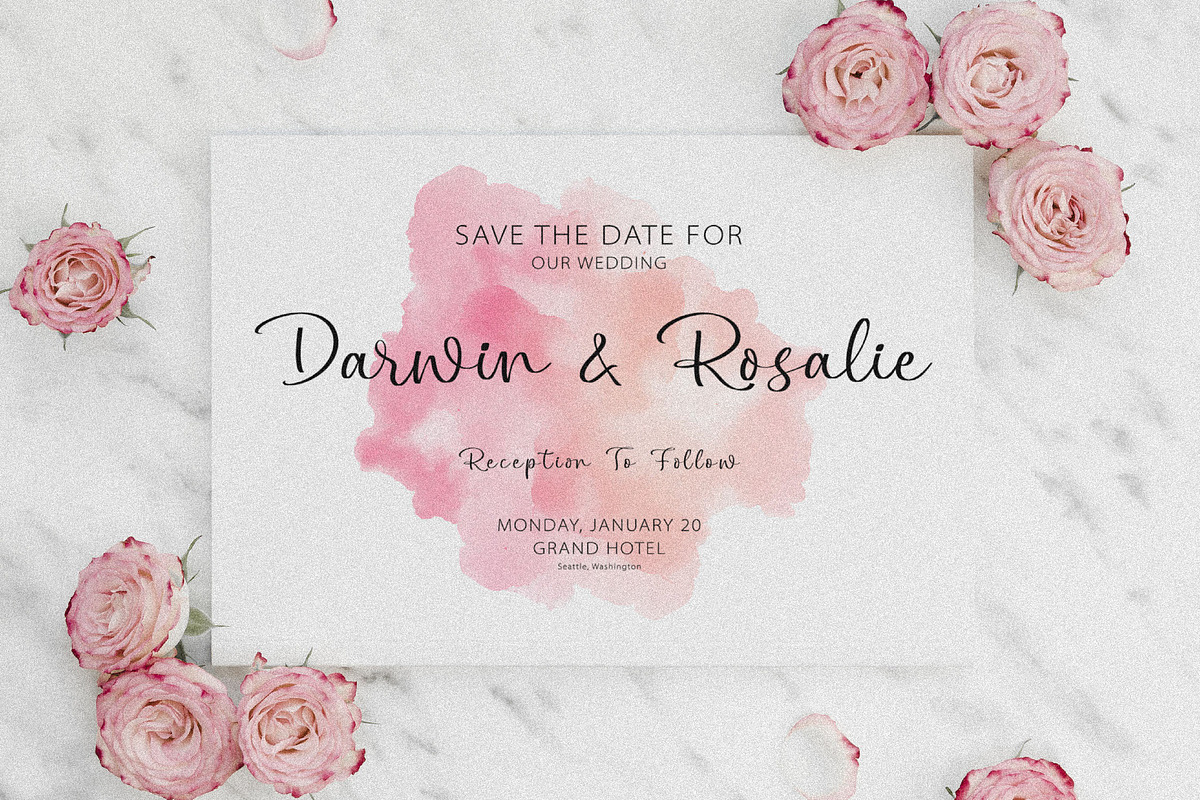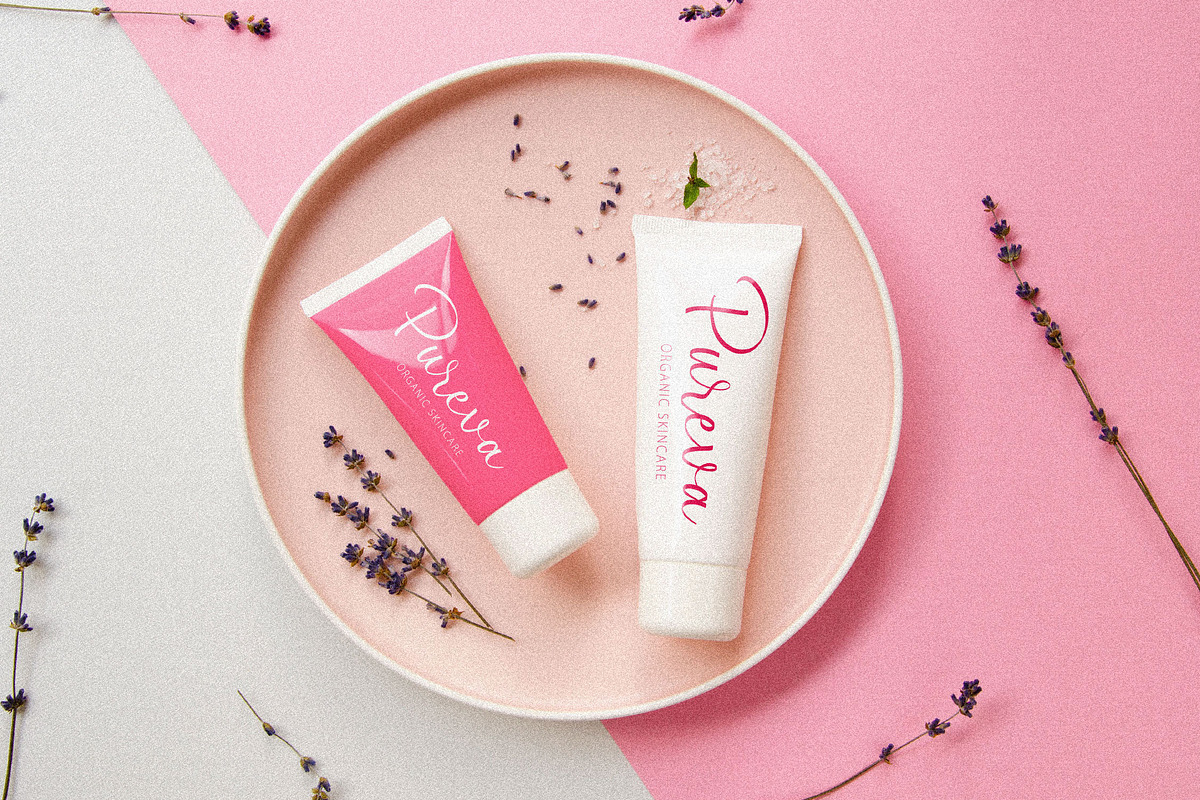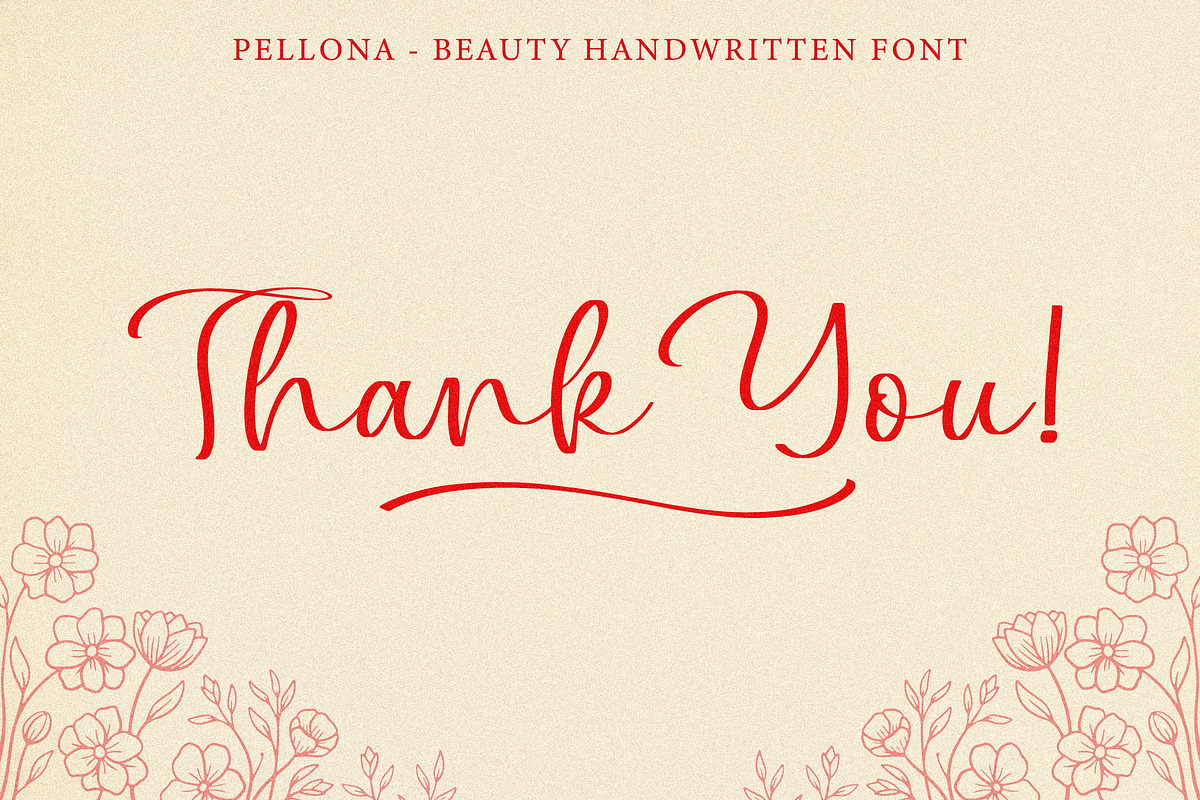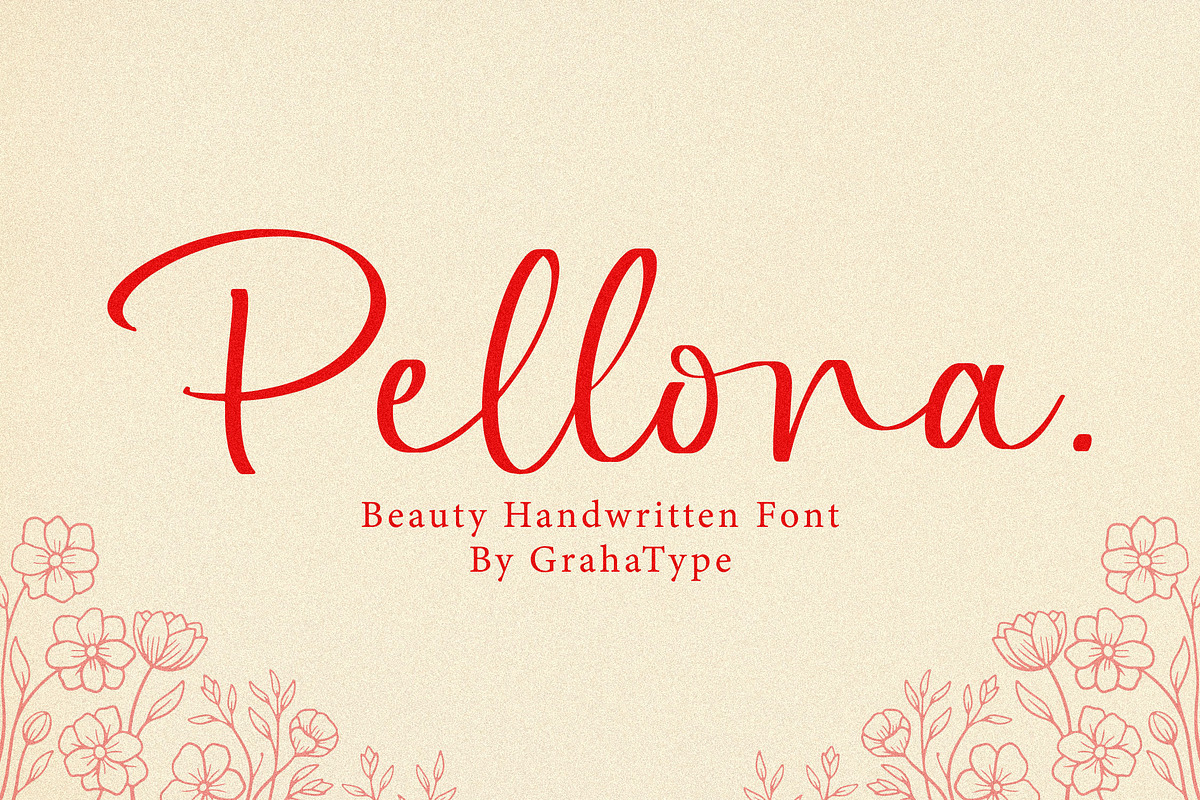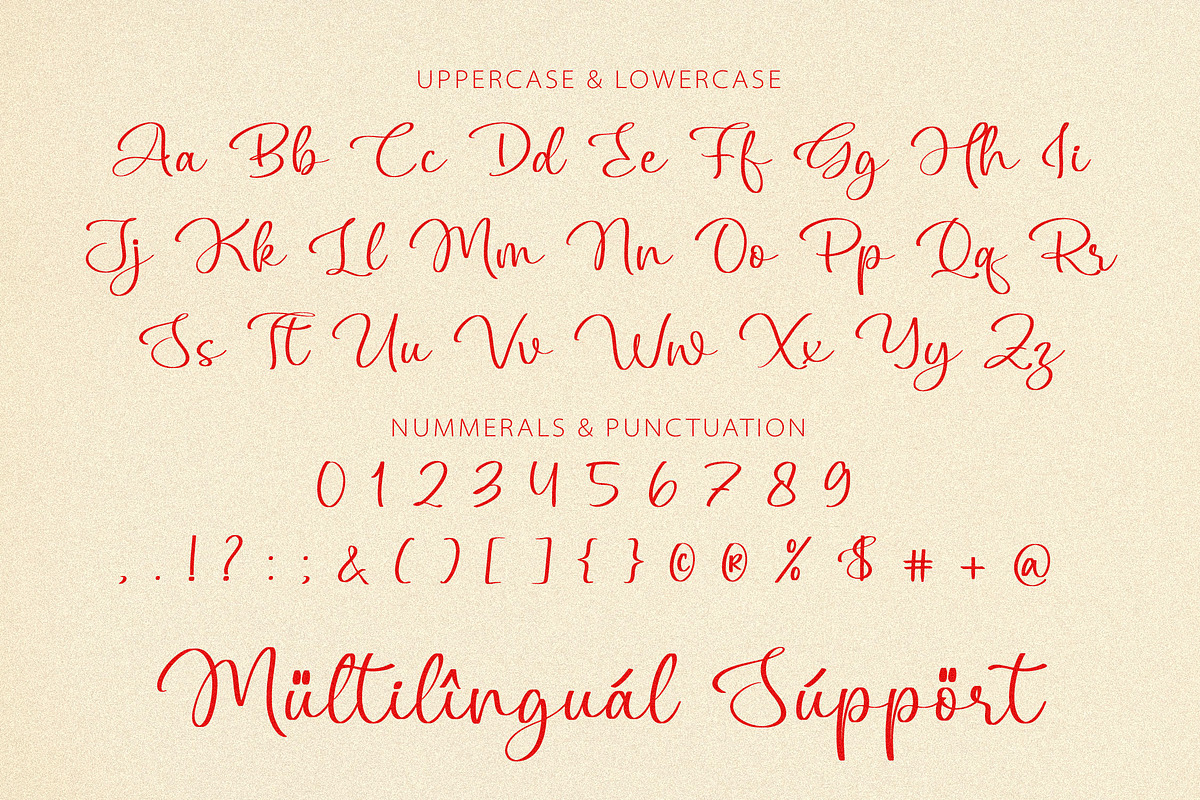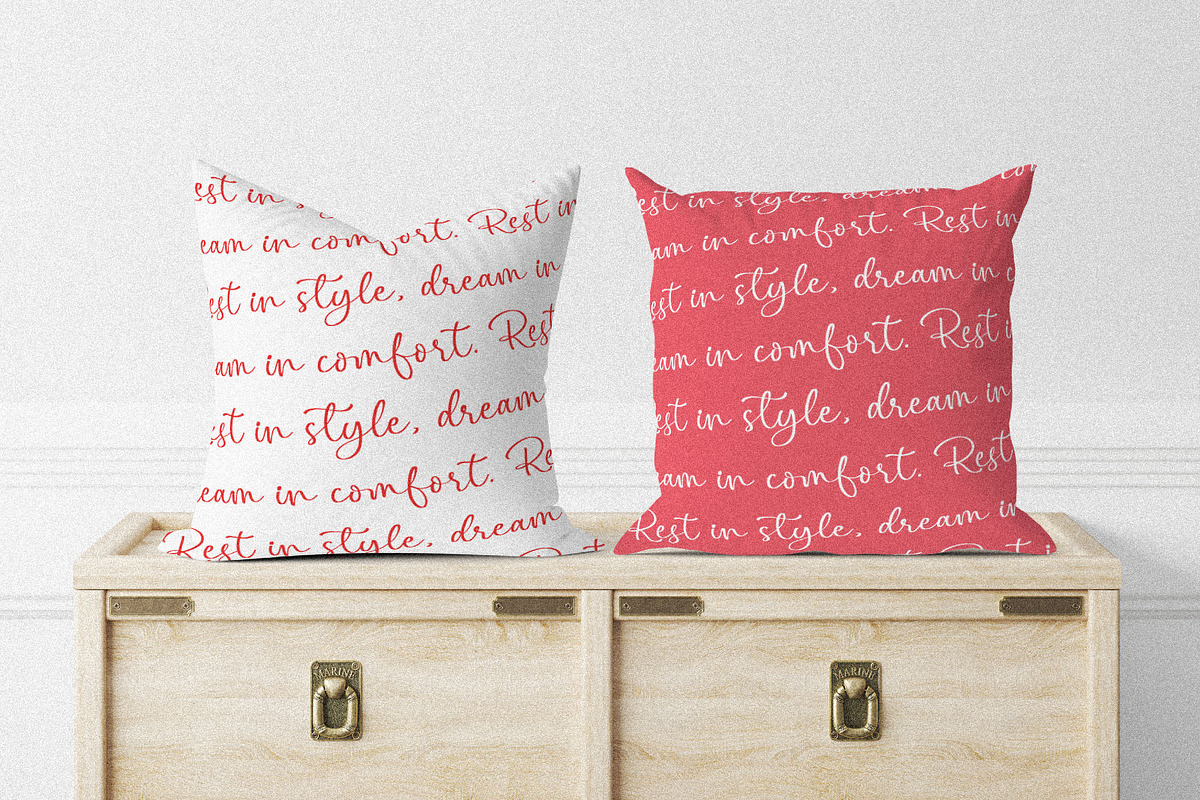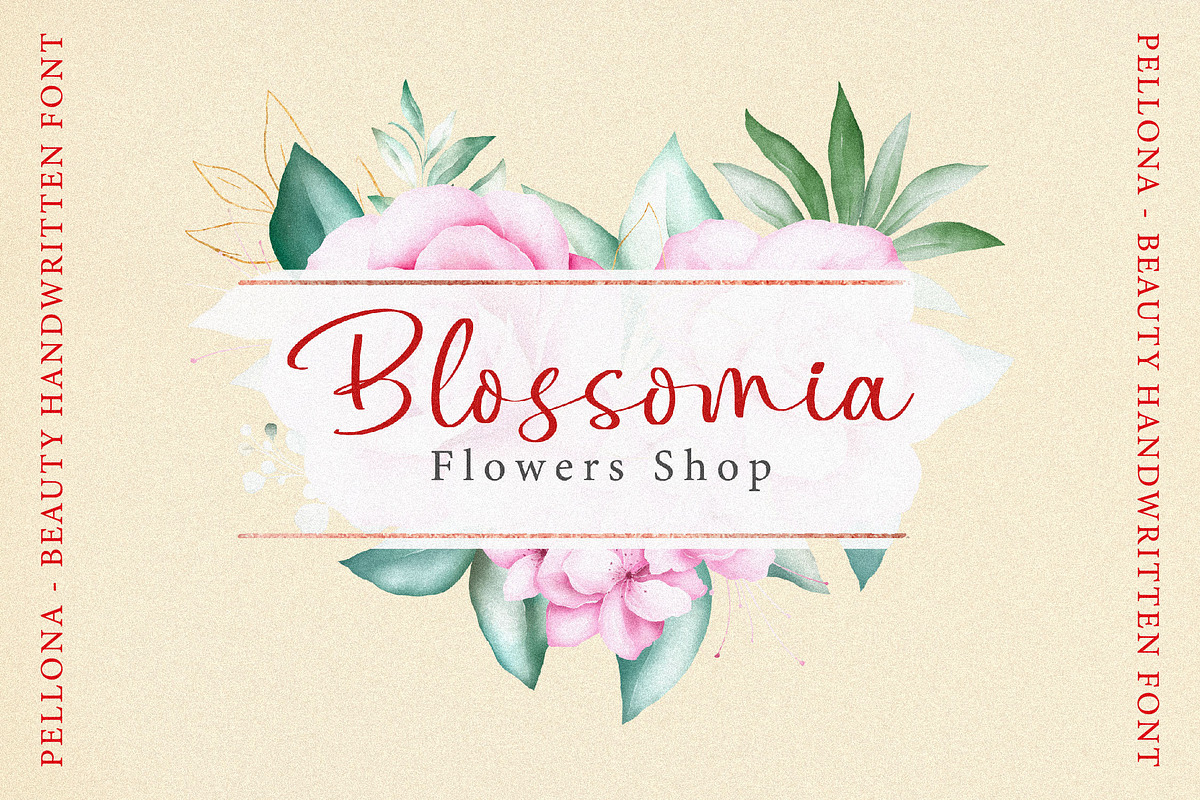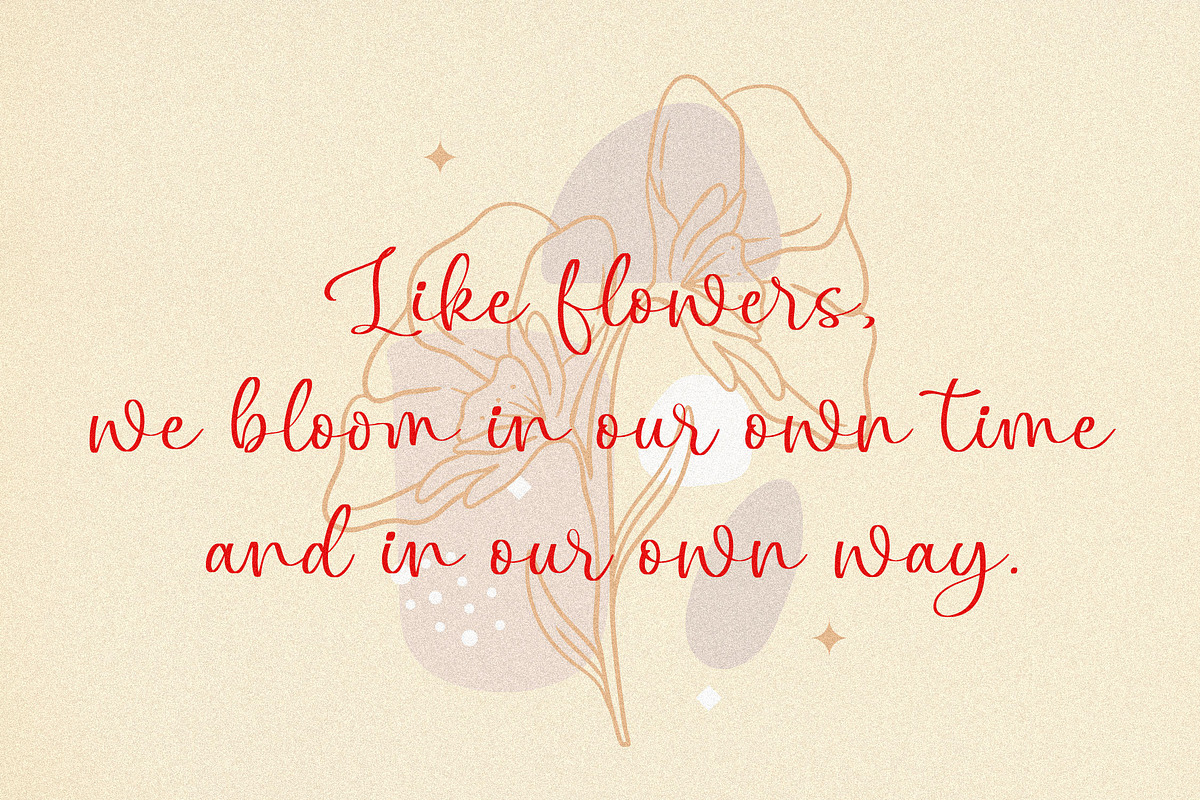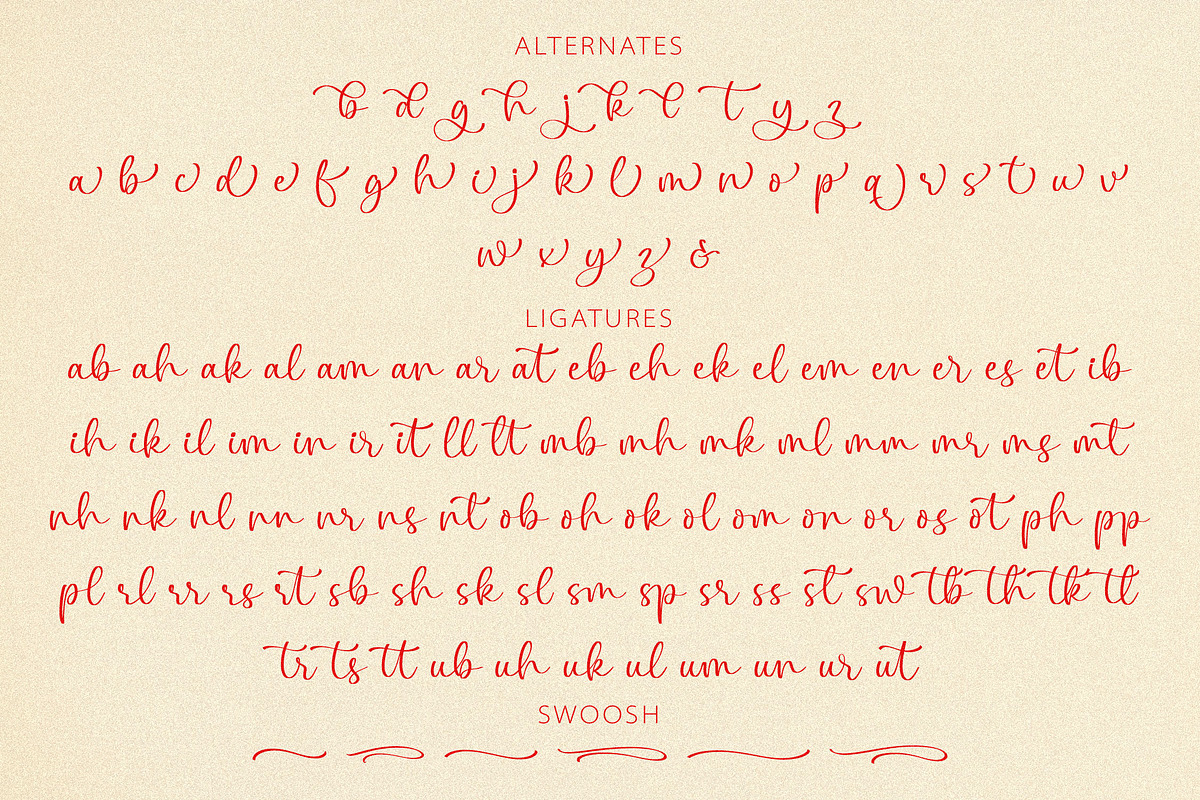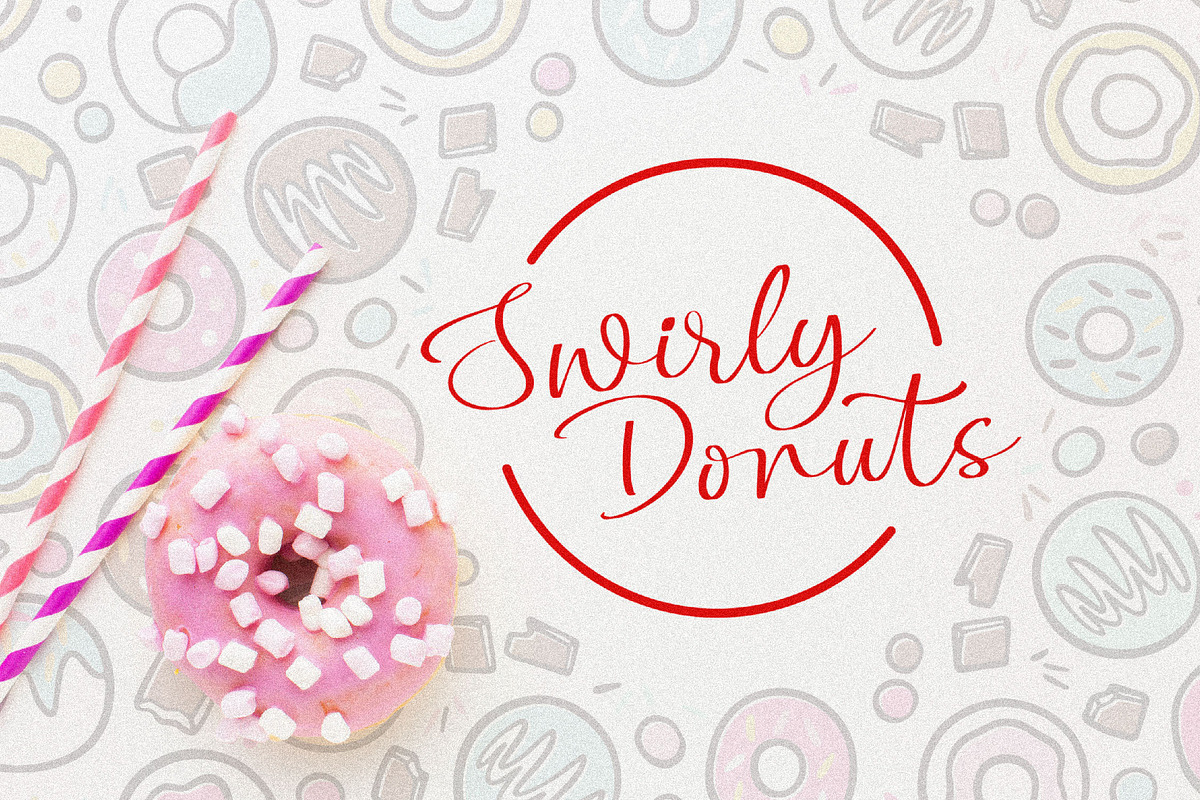
Pellona - Beauty Handwritten
Pellona is a modern and elegant font that features a Beauty Handwritten style, blending graceful, natural handwritten strokes with a touch of sophistication. Its smooth curves and dynamic form create a distinctive yet approachable look, making it ideal for a variety of design purposes such as invitations, branding, logotypes, and other creative projects. Pellona conveys a luxurious and romantic feel, perfect for special occasions like weddings or product launches, while maintaining excellent readability in any size. With its unique balance of elegance and warmth, Pellona brings a personal, stylish touch to any design.